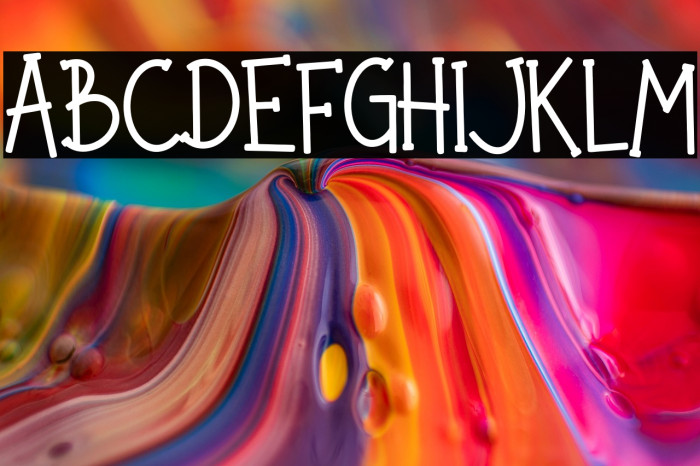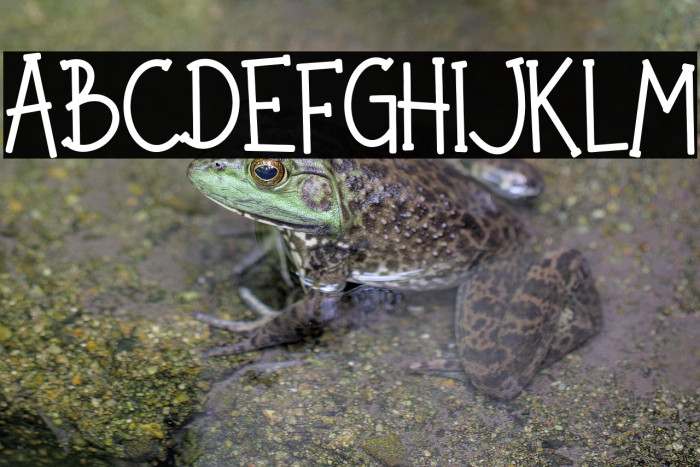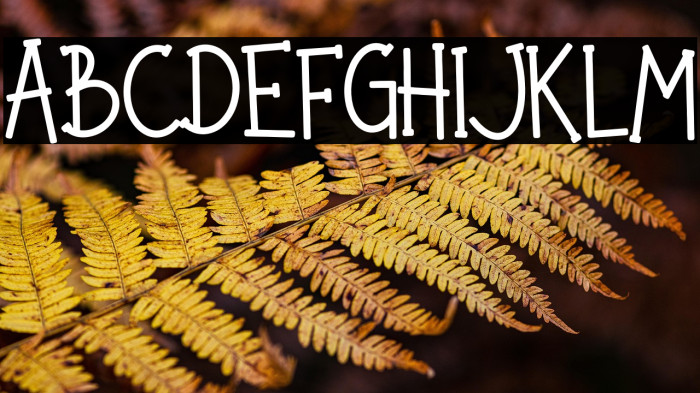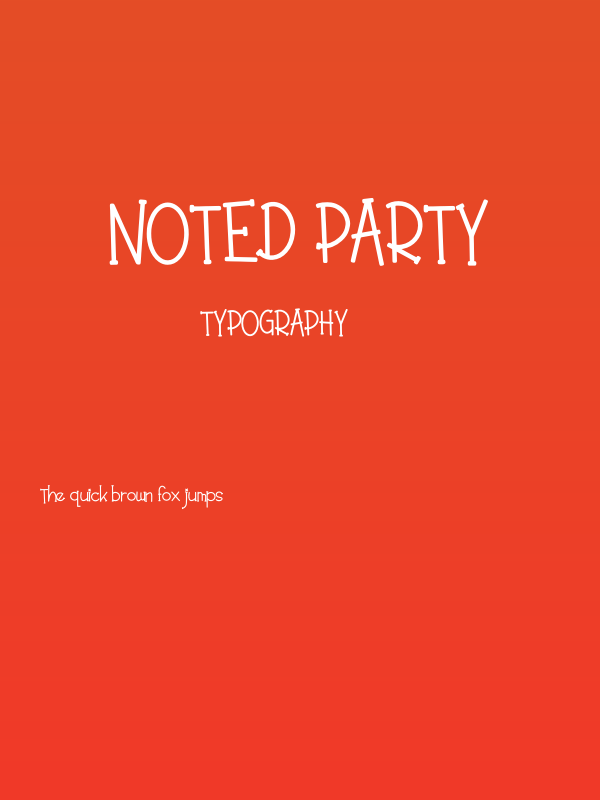
Noted Party Font
Noted Party Description
This playful and whimsical font features a handwritten style with a casual and friendly appearance. The characters are slightly irregular, adding a touch of personality and charm. The uppercase letters are tall and narrow, while the lowercase letters maintain a consistent height, creating a harmonious balance. The numbers are rounded and easy to read, and the special characters are creatively designed to match the overall style. The font's unique character shapes make it suitable for projects that require a fun and informal touch.
| Overall Style | Playful |
| Use Case | Headlines, Logos, Invitations |
| Proposed Projects | Ideal for children's books, party invitations, greeting cards, and playful branding. |